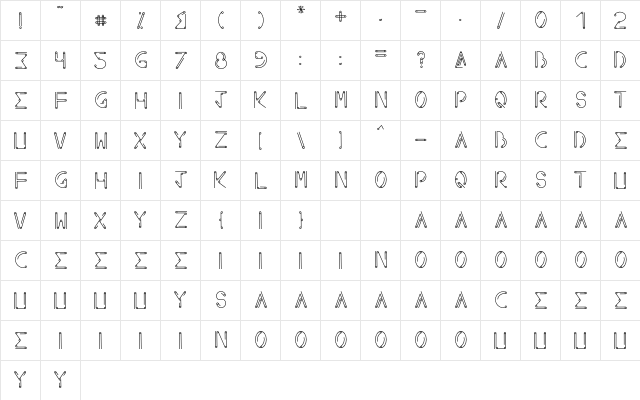
Axeon Regular
| Foundry | Rometheme Studio |
| Designer | Rometheme Studio |
Design Context for Axeon Typeface
Axeon takes a measured approach to typography — its balanced proportions and neutral character make it a reliable workhorse for both digital and print work.